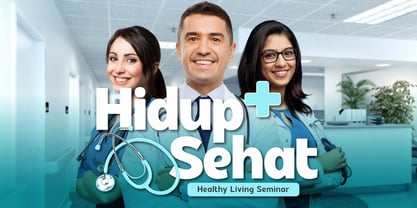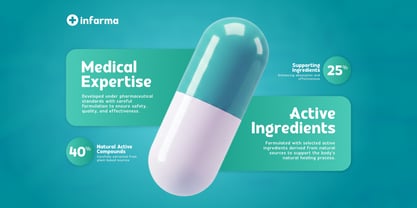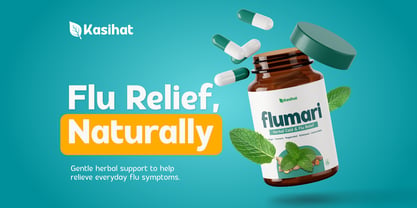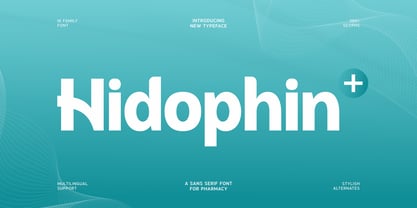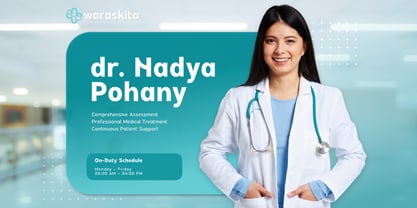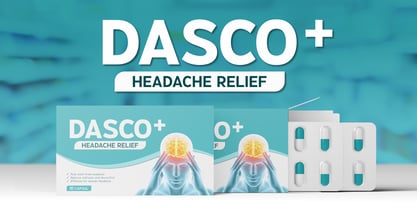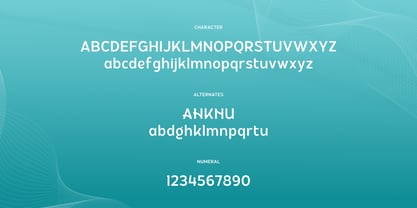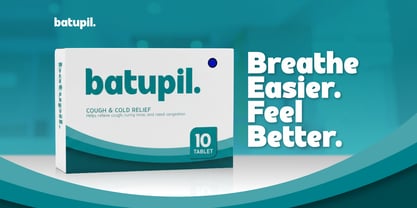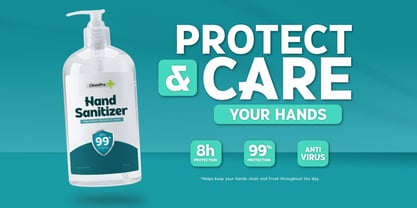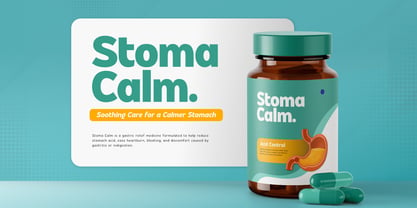
Hidophin
by Twinletter
The Hidophin Font Family was designed by Rozikan and published by Twinletter. Hidophin contains 18 styles and family package options. More about this family
Hidophin is a modern Sans Serif typeface specifically crafted for the pharmacy and healthcare industries. The clean and minimalist letterforms provide a professional and trustworthy impression. Its visual characteristics are highly suitable for medicine branding, drugstore identities, herbal products, and various companies within the healthcare sector. Its functional design structure ensures high readability across both print and digital media. The balanced proportions make Hidophin a practical solution for product packaging, medical logos, drug information labels, and healthcare website interfaces. Its clean shapes help clarify the delivery of technical information that requires good visual accuracy. As a Pharmacy & Healthcare Font, Hidophin supports multilingual characters, providing flexibility for designers managing both local and international projects. This font is the right choice for businesses prioritizing credibility and visual clarity in their corporate identity. With its contemporary style, Hidophin helps strengthen the information hierarchy in any professional layout. What’s Included: - All glyphs and Feature - We highly recommend using design software that supports OpenType features and Glyphs panels (such as Adobe Illustrator, Photoshop, or Corel Draw) to access all the stylistic variations easily. - PUA Encoded: All glyphs are fully accessible without any additional software. - Multilingual Support: Fully supports 85+ languages.
Designers: Rozikan Rozikan
Foundry: Twinletter